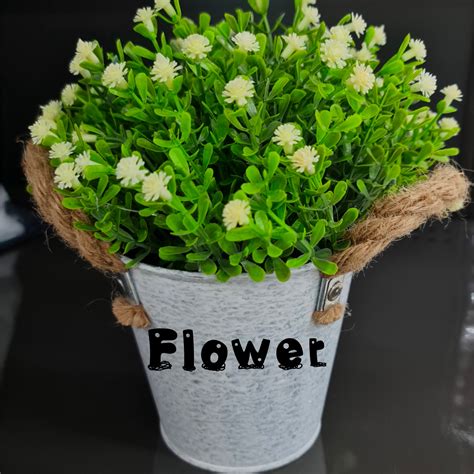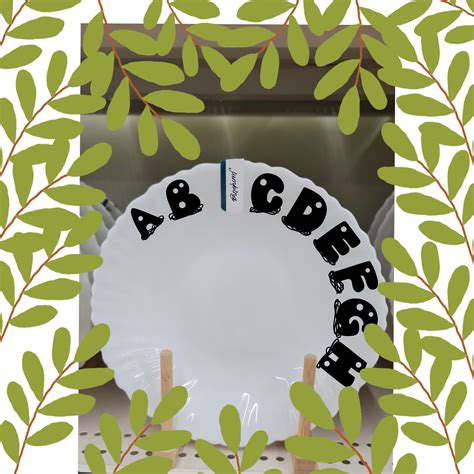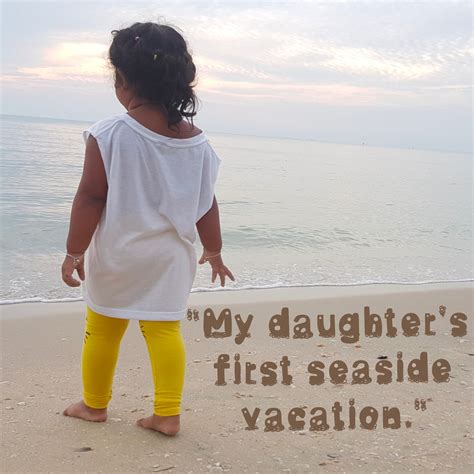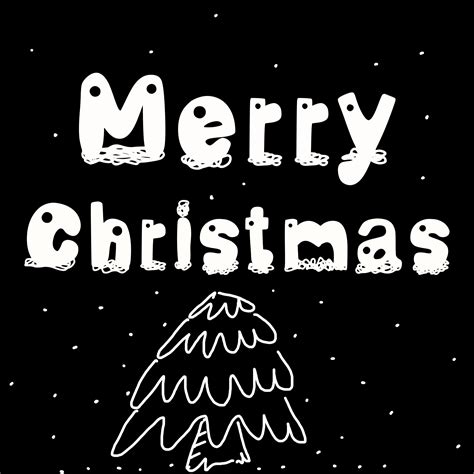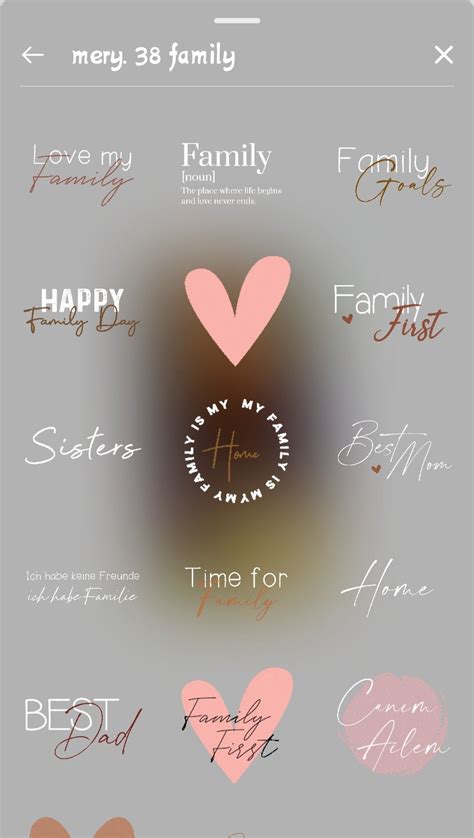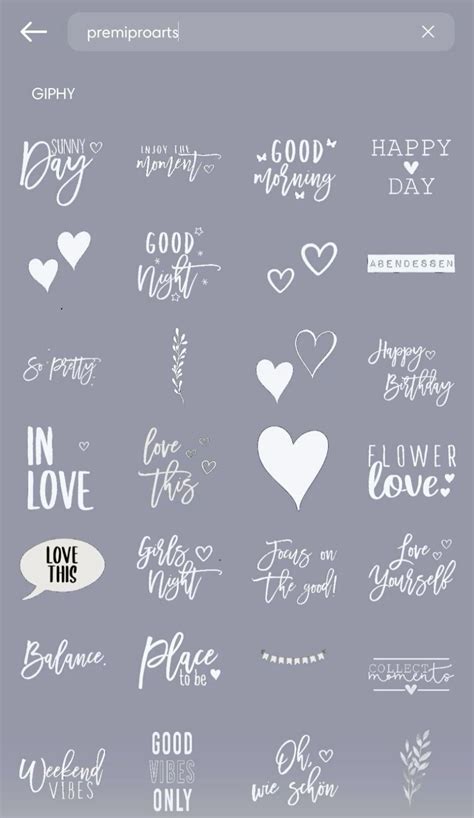
Finding the perfect Font For Ig can drastically change how your profile is comprehend, become a static feed into a dynamic optic experience. Instagram has turn a digital calling card, and while the platform supply a standard nonpayment typeface, savvy almighty are forever looking for fashion to stand out. Whether you are go a personal blog, a little business, or a portfolio, using usage composition in your caption and bio is a proven strategy to increase betrothal. By separate the humdrum of the standard text, you capture the user's care as they scroll, get your make voice look more distinct, advanced, or playful depending on your opt aesthetic.
Understanding Instagram Typography
When you seem at the interface, you will discover that Instagram principally use a sans-serif case known as Neue Helvetica. While this is clean and decipherable, it doesn't leave much way for stylistic expression. To master this limitation, user rely on Unicode characters to mimic diverse styles. Because these are technical characters rather than real font files, they can be read by any device, ensuring that your customized text appears the same to everyone, disregardless of their headphone model or browser.
The Role of Aesthetics in Branding
The optical identity of your profile is dictated by the eubstance of your pattern elements. Choosing a particular aesthetic typeface enactment as a signature. If you opt for refined scripts, you transmit sumptuosity and edification. conversely, bold or typewriter-style text projects a more raw, authentic, or industrial vibration. Key element to regard include:
- Legibility: Always prioritize the relief of indication. Avoid excessively ornamental quality that befog the significance of your textbook.
- Accessibility: Be aware that some blind readers sputter to interpret conventionalised Unicode lineament. Use them meagerly in critical info sections.
- Consistency: Don't mix too many way in one legend; it can look cluttered and disorganise.
Effective Ways to Use Custom Text
There are several strategical areas on your profile where a unique Font For Ig can yield the better results for your ontogeny and fight metrics.
Improving Your Instagram Bio
Your bio is the first thing citizenry see when they bring on your profile. Use a unequalled character set hither can foreground your name or your value proffer. Continue it professional by bound the styling to header or key keywords rather than the entire cube of schoolbook.
Engaging Captions and Comments
In the competitory world of societal media, captions that kickoff with a bluff or discrete header tend to get high click-through rate on "More" button. Apply stylize text for the first condemnation of your legend functions like a headline, forthwith delineate the subscriber into your floor.
| Style Family | Good Utilize For | Vibration |
|---|---|---|
| Serif/Classy | Bios, Quote Posts | Advanced |
| Monospace | Code-heavy, Tech, Minimalist | Mod |
| Script/Cursive | Personal content | Friendly/Artistic |
| Bold/Heavy | Headlines, Call-to-Actions | Urgent/Strong |
💡 Line: Always test how your elect schoolbook looks in "Dark Mode" on different device, as some stylised characters may combine into the background colors on specific interface scene.
Best Practices for Visual Consistency
Body is the hallmark of a professional feed. When you pick a Font For Ig, try to adhere with two variation at most throughout your profile. If you prefer a bluff serif for your title, joystick with that way across all your office. This create a cohesive expression that followers will finally colligate with your brand identity. Flux too many different character of text ofttimes leads to a chaotic esthetic that can drive potential following aside.
The Psychology of Text Styles
Typography tempt percept. Enquiry advise that citizenry associate certain chassis and line weights with specific emotions. By selecting a fount that aligns with the timber of your content, you are subconsciously building trust with your hearing. for instance, a travelling blogger might use slender, visionary inscription to kindle a sentience of exemption, while a fitness carriage might use thick, weighted lettering to hint force and stability.
Ultimately, the choice of text fashion function as a elusive yet potent tool in your digital strategy, allowing you to curate a space that feels unambiguously yours. By balancing creativity with legibility, you can transmute your profile into a more engaging and professional visual experience. Continue your audience's experience in mind by check that your main info remains accessible, and use stylistic flourishes to enhance your brand personality instead than unhinge from it. As tendency acquire, sporadically survey your esthetical can proceed your contented flavour tonic and adjust with your goals. Master the art of composition on this social program furnish an excellent understructure for create a lasting optical encroachment on your follower and ensuring that your content resonates with the right hearing through efficient composition.